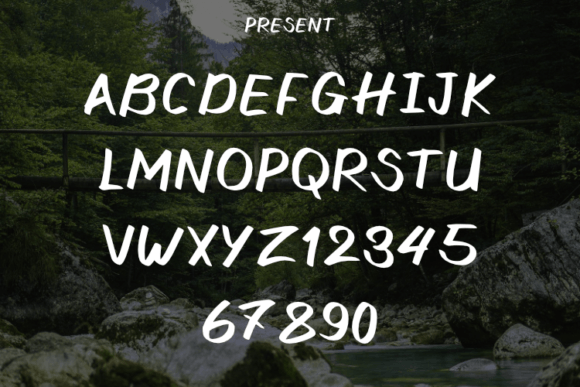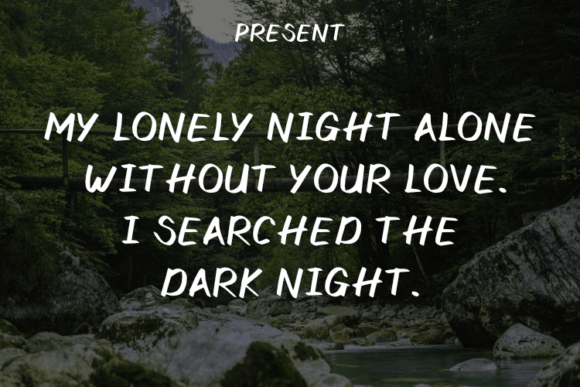
Introduction to Jiwone Font
Have you ever been browsing through a fashion magazine and stumbled upon a beautiful, elegant logo that caught your eye? The combination of modern style and handwritten flair is what makes it truly memorable. For designers, finding the perfect font can be a challenge, but with the rise of high-quality design resources, it’s easier than ever to elevate your creative projects. Today, we’re shining the spotlight on the Jiwone Font, a versatile and stylish typeface that’s perfect for a variety of applications.
As a design enthusiast, you know how crucial it is to have access to a wide range of fonts to suit your needs. Whether you’re working on a logo, book title, or fashion brand, the right font can make all the difference. With its simple yet modern look, the Jiwone Font is an excellent addition to any design arsenal, offering a transparent background and free download options for maximum flexibility.
Key Features of Jiwone Font
- Features a unique, modern design that sets it apart from other fonts
Honest Review: Jiwone Font
I recently had the chance to work with the Jiwone Font, and I must say it’s been a game-changer for my design projects. This high-quality font has quickly become one of my go-to resources.
- ✨ The Jiwone Font offers a wide range of styles and weights, making it versatile for various design applications.
- ⚠️ Some users may find the font’s unique style to be too bold or overpowering, depending on the design context.
Overall, I’m thoroughly impressed with the Jiwone Font and its potential to elevate any creative project. Its high quality, versatility, and free download option make it an excellent design resource for designers of all levels.
Tips for Getting the Most Out of Jiwone Font
To get the most out of Jiwone Font, experiment with different font sizes, colors, and styles to find the perfect combination for your creative project. Additionally, use the font’s transparent background feature to create visually appealing designs.
The Jiwone Font is ideal for use in a variety of creative projects, including graphic design, digital art, and print materials. Its high-quality features and transparent background make it a popular choice among designers and artists.